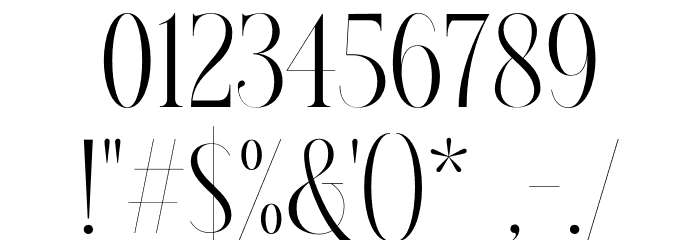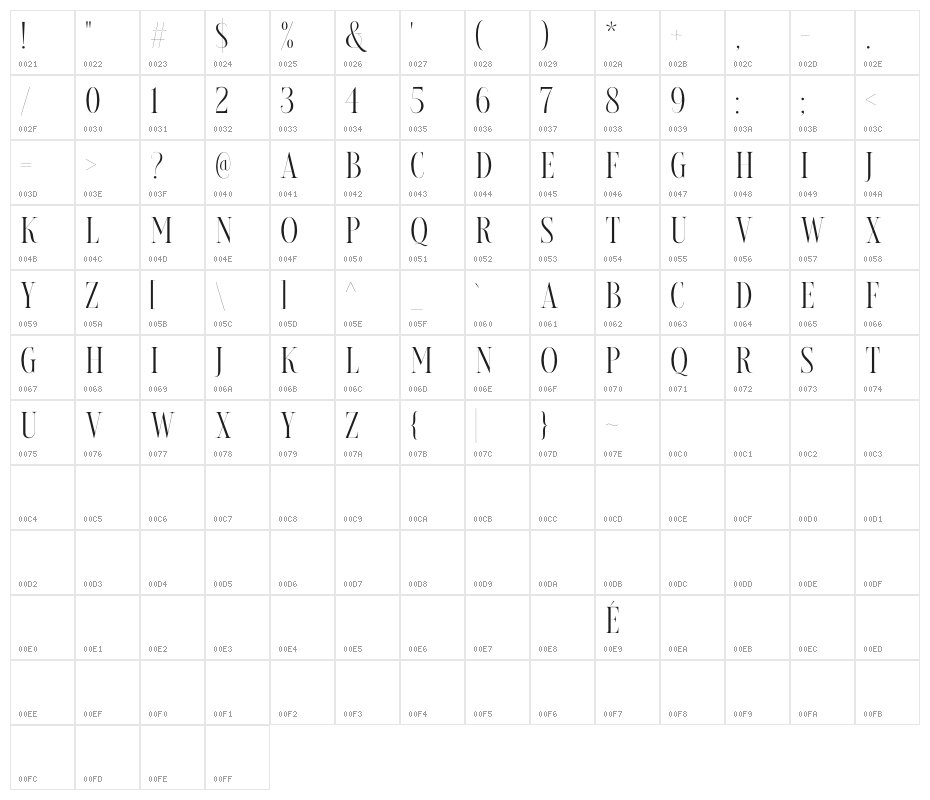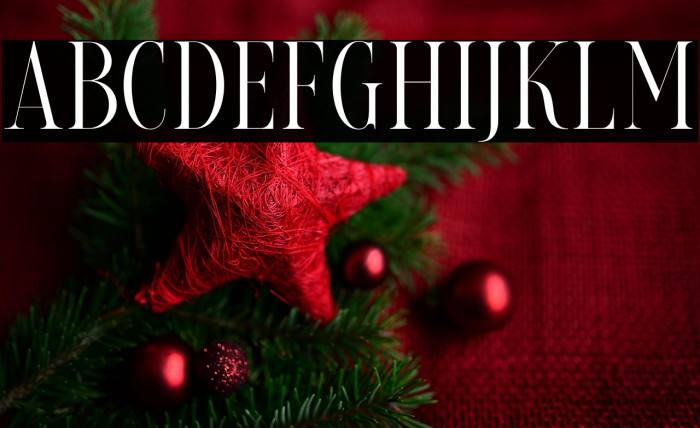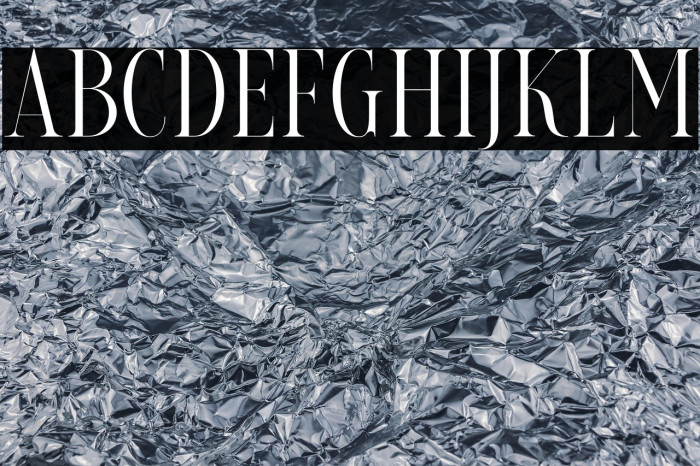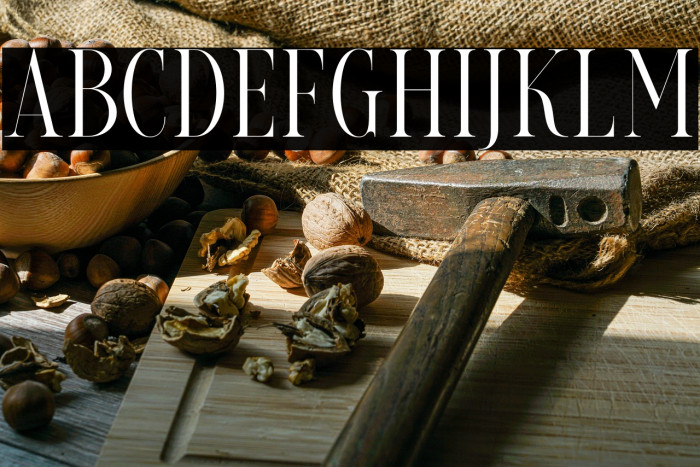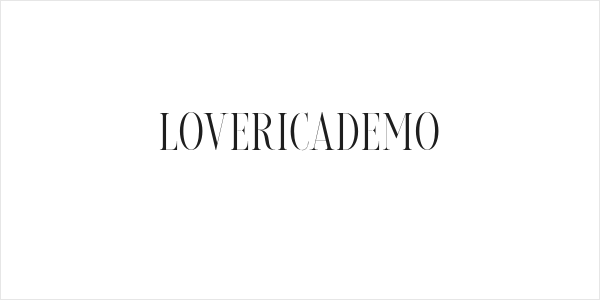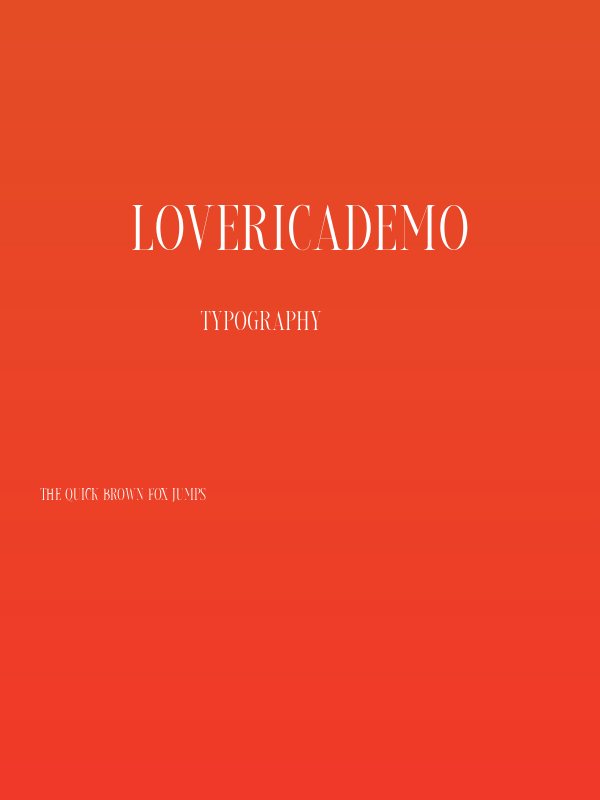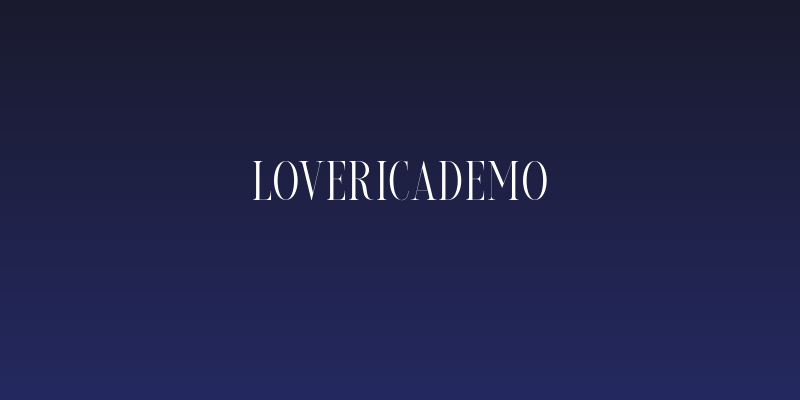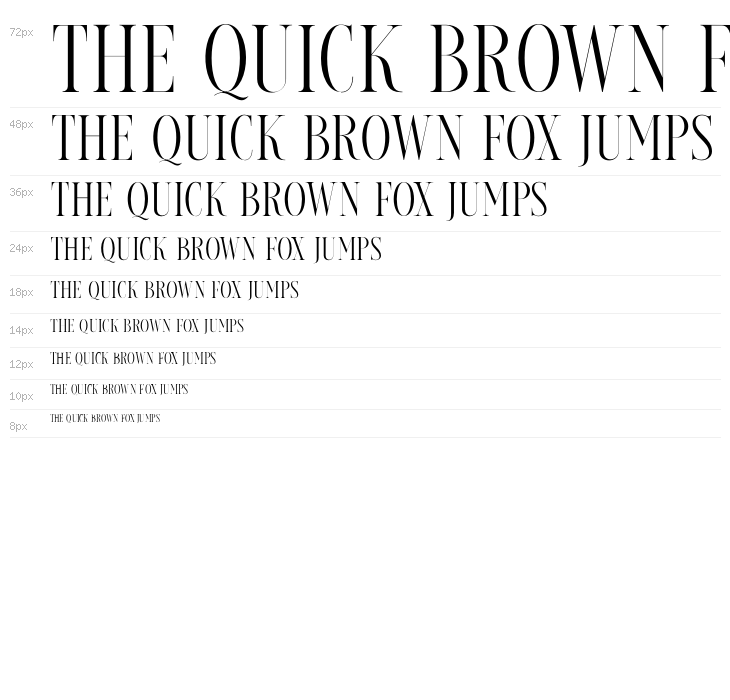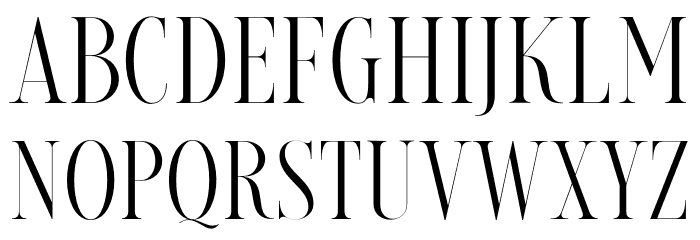
LovericaDEMO Font
LovericaDEMO Description
This font features a sophisticated and elegant design with high contrast between thick and thin strokes, giving it a refined and classic appearance. The serifs are sharp and pronounced, adding a touch of formality and tradition. The uppercase letters are tall and commanding, while the lowercase letters maintain a consistent style that complements the overall aesthetic. The numerals are stylish and align well with the alphabet, making them suitable for a variety of uses. Special characters are included, maintaining the same elegant style, ensuring versatility in design projects.
| Use Case | Headlines, Logos, Editorial design |
| Proposed Projects | Ideal for luxury branding, editorial design, wedding invitations, and high-end product packaging. |